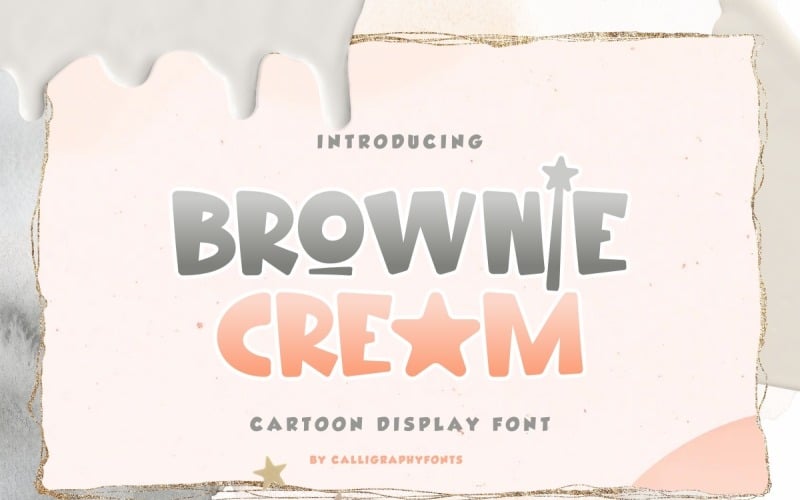
Brownie Cream Display Font
Brownie Cream Font is a cute and sweet uppercase cartoon display creating the perfect joy for cookies and kids related activities. This font has its own style inspired by children’s typography combined with the sweetness of the melted brownie cream, ideal for birthday invitation, brand or product print, café, cake or candy shop, celebration project, cooking class blog, custom mug, label, logos, product packaging, signage for company, and title.
Brownie Cream Font includes only ALL CAPS characters, Numeral, Symbol and Punctuation, Alternate and Ligature, Multilingual support and also with Opentype Features. This font is PUA Encoded – Can be accessed completely without additional design software. This font is good for any title, bakery, coffee shop, kids product, logotype, menu flyer, poster, school, social media, a short text or a long text letter and good for your secondary text font with script.